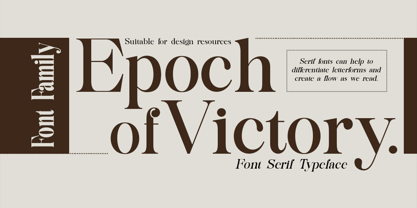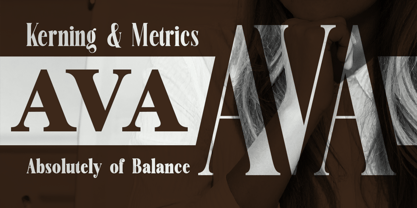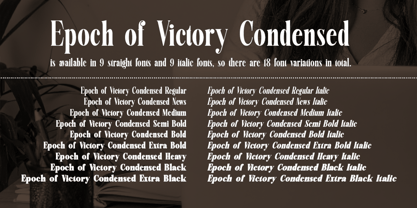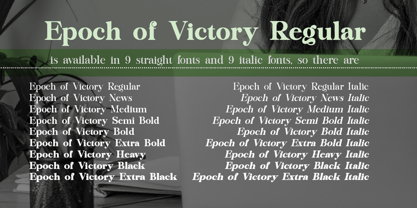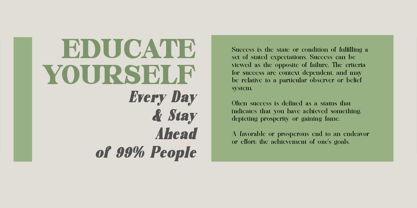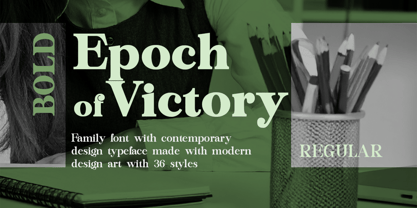
Epoch of Victory
by Groen Studio
The Epoch of Victory Font Family was designed by Roiyani Teungku and published by Groen Studio. Epoch of Victory contains 36 styles and family package options. More about this family
Epoch of Victory strikes the perfect balance between the familiar and the unexpected. With Epoch of Victory, designers can use this font for a variety of purposes in creating elegant design work. Epoch of Victory is a bold and expressive serif font family that graces the pages of top fashion magazines and publications in print and on the web. Epoch of Victory oozes vintage charm that supports contemporary designs.
Epoch of Victory is a variation of a font with a normal and condensed style that has a distinctive feature in the glyph character section that looks soft and flexible. This font comes in 36 variations, including; 18 Regular fonts upright and italic; 18 condensed upright and italic.
This font looks amazing in logos, magazines, and films. This font will be perfect for branding, headlines, captions, paragraphs, and posters. Various thicknesses allow you to experiment with various applications. This font is made to make an impression without sacrificing its beauty and readability.
Designers: Roiyani Teungku
Foundry: Groen Studio